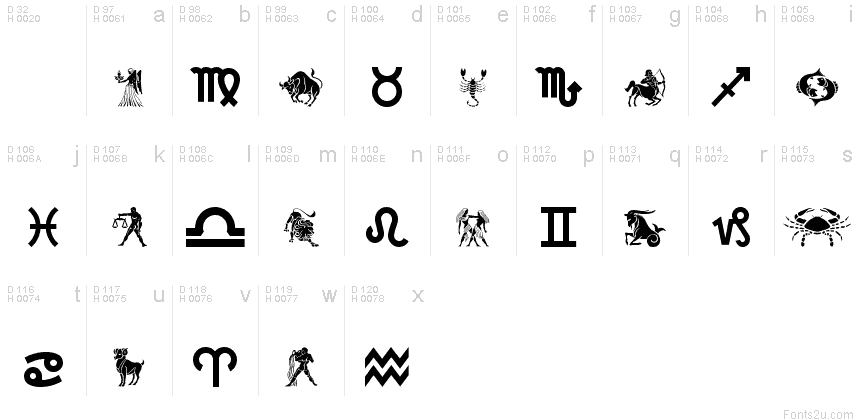
GE Zodiac
GE Zodiac font by Graphx Edge is a free decorative dingbat typeface that turns every keystroke into a bold zodiac emblem. The signs are rendered as inky silhouettes with flowing robes, smooth curves, and crisp negative space, giving them a mythic, almost carved-in-stone feel. Because each symbol is clean and high-impact, they scale beautifully from tiny icons to large focal graphics without losing clarity.
Using GE Zodiac, you can quickly build horoscope columns, astrology blogs, tarot and oracle decks, esoteric posters, moon ritual guides, or mystic event flyers with a consistent visual language. This free font also shines on candle labels, journal covers, and social media templates. For a simple pairing, set headlines using the GE Zodiac symbols as accents and combine them with a minimalist sans serif for text to keep the artwork grounded and readable.